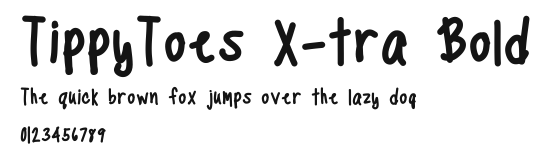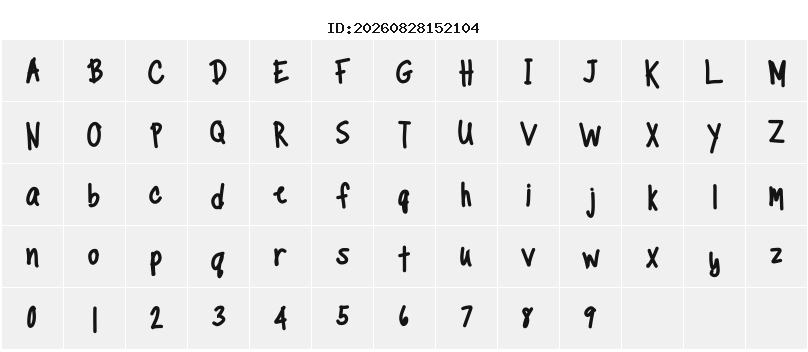
TippyToes X-tra Bold Preview
About TippyToes X-tra Bold.ttf
TippyToes X-tra Bold.ttf is a modern, elegant sans-serif font designed for ultimate readability and visual harmony. Perfect for branding, headlines, web design, and print materials.